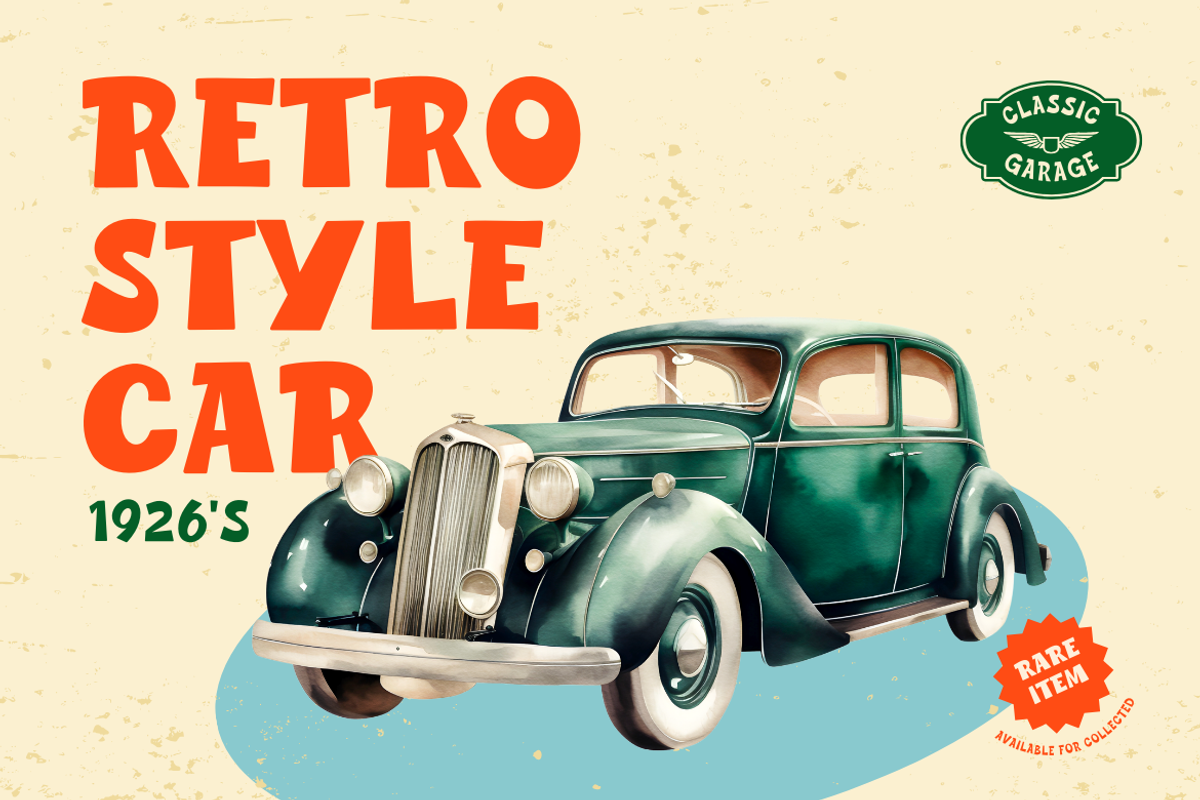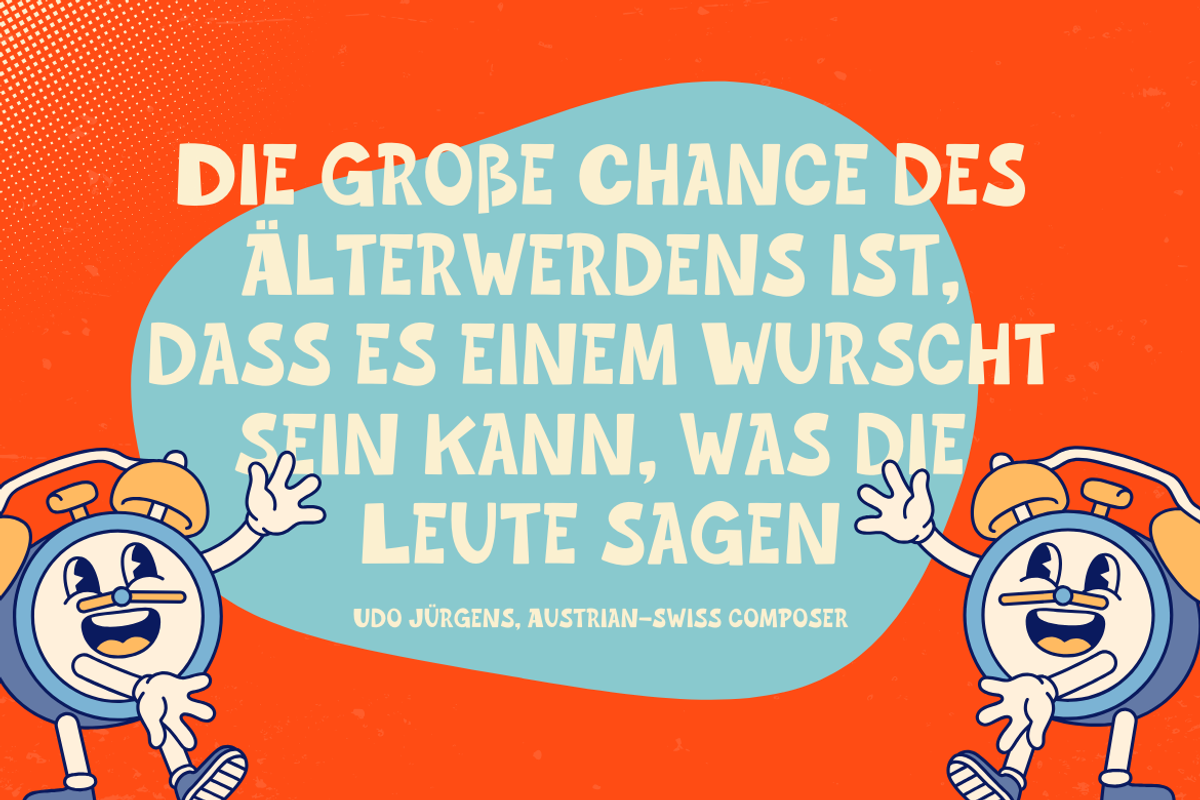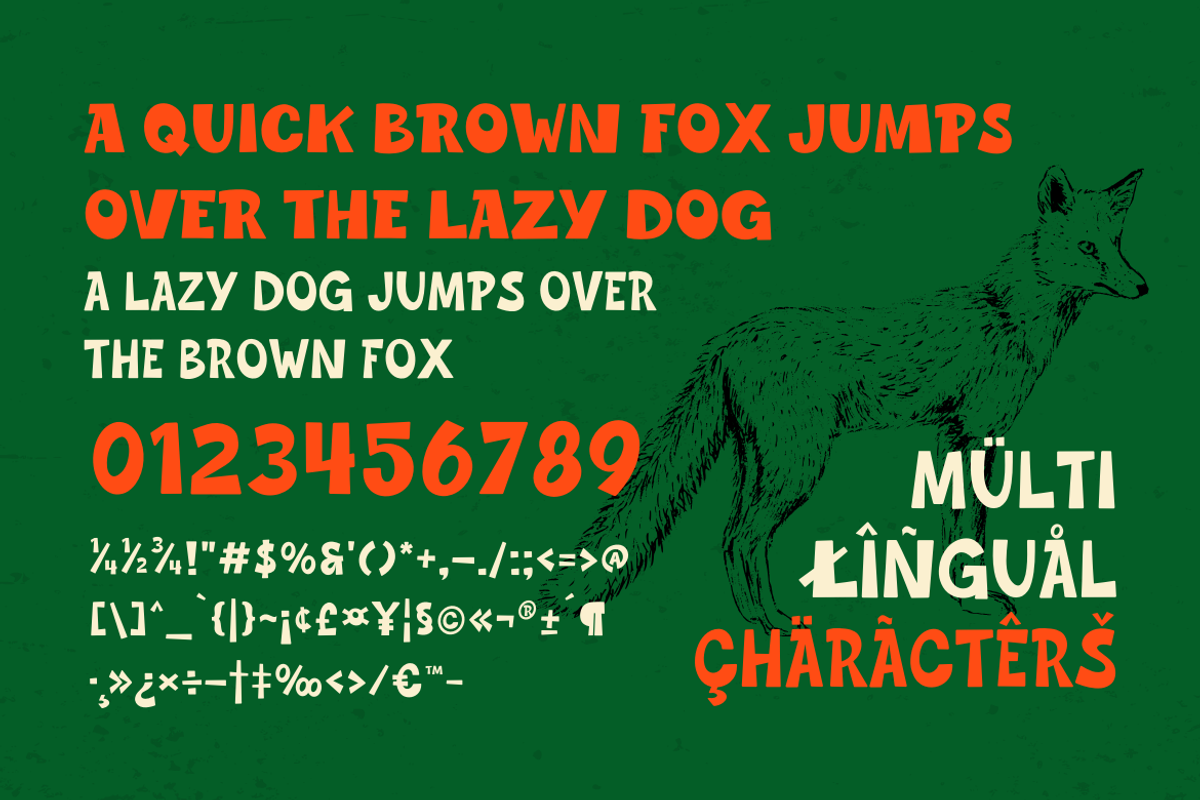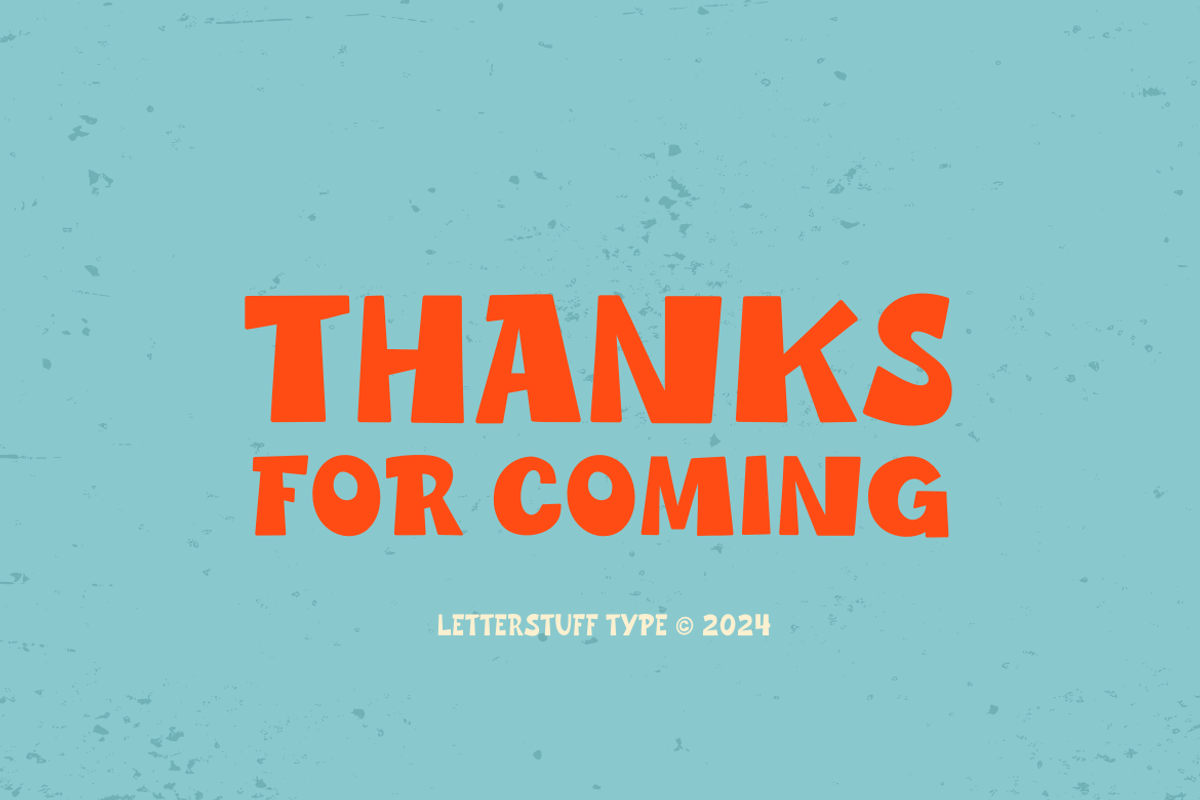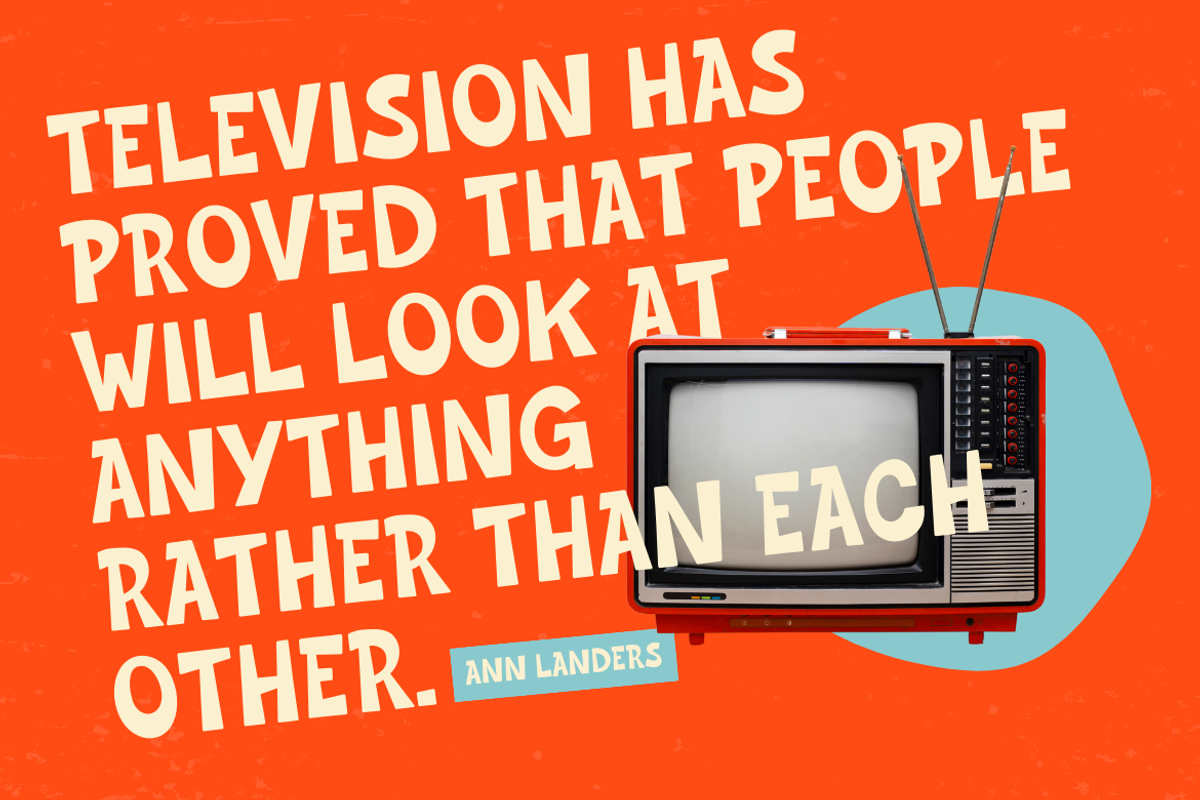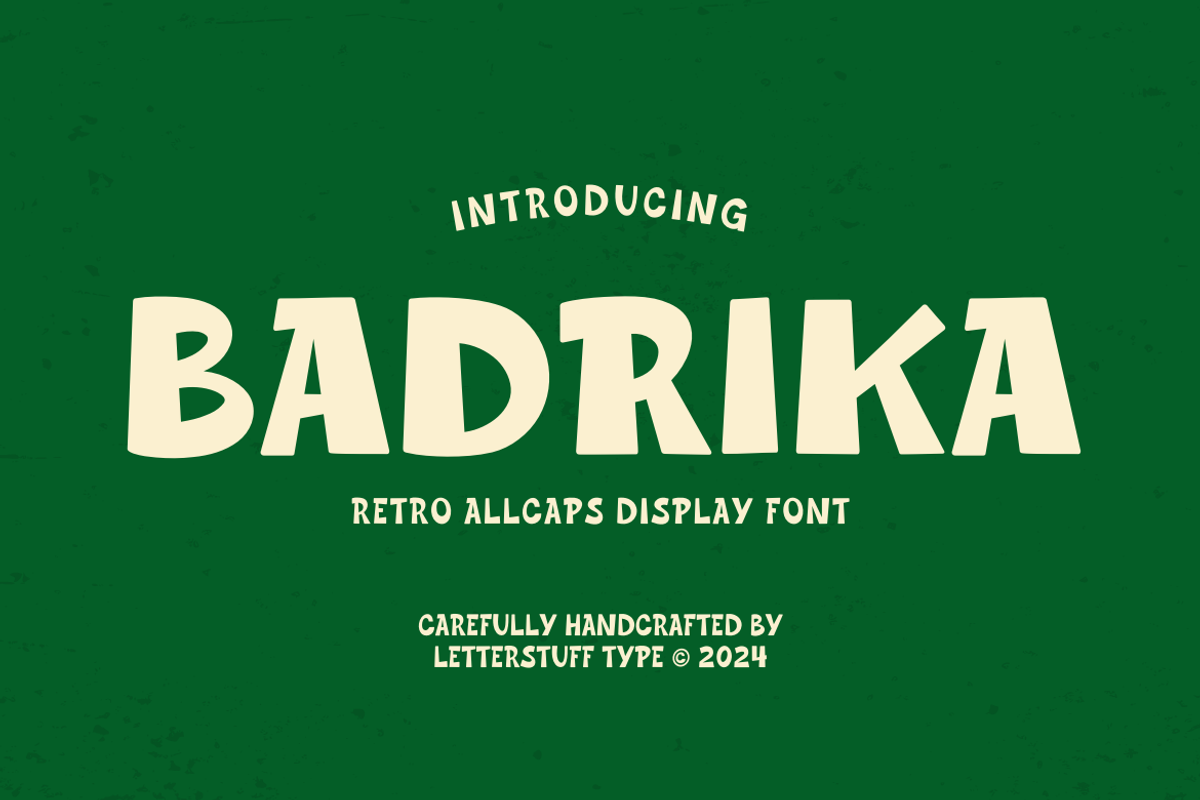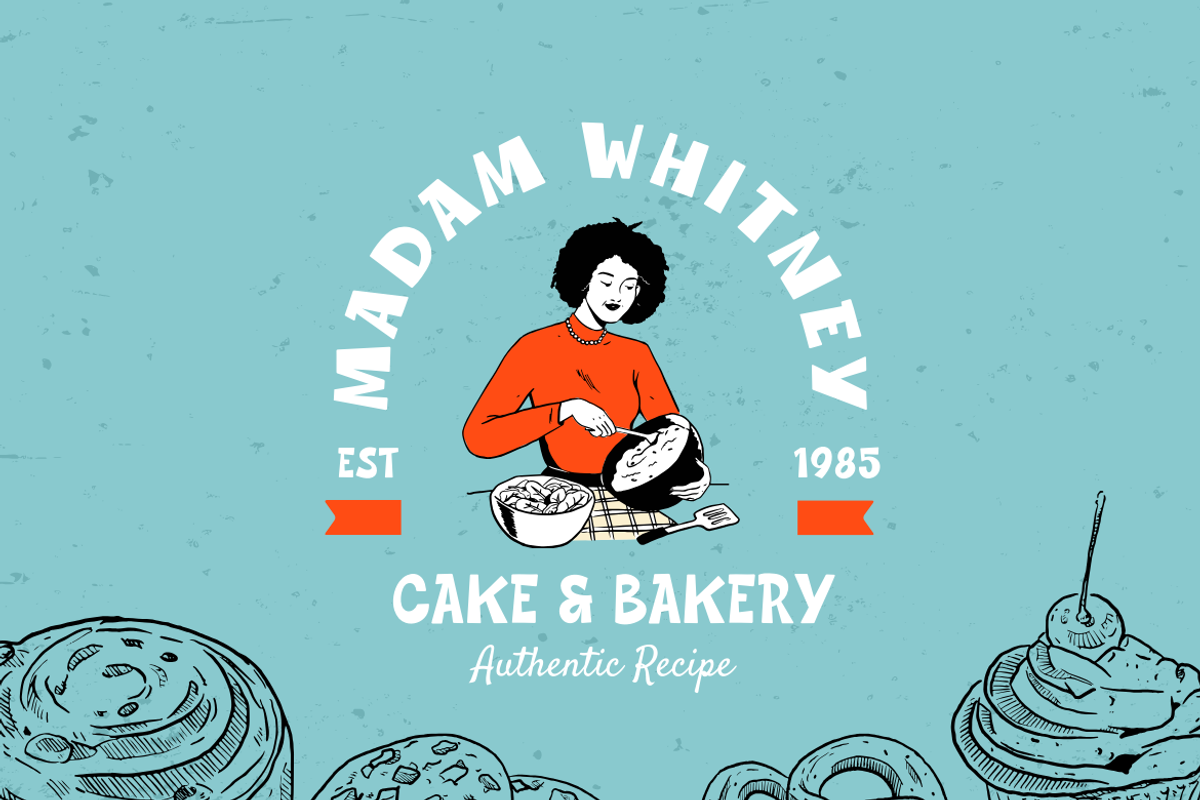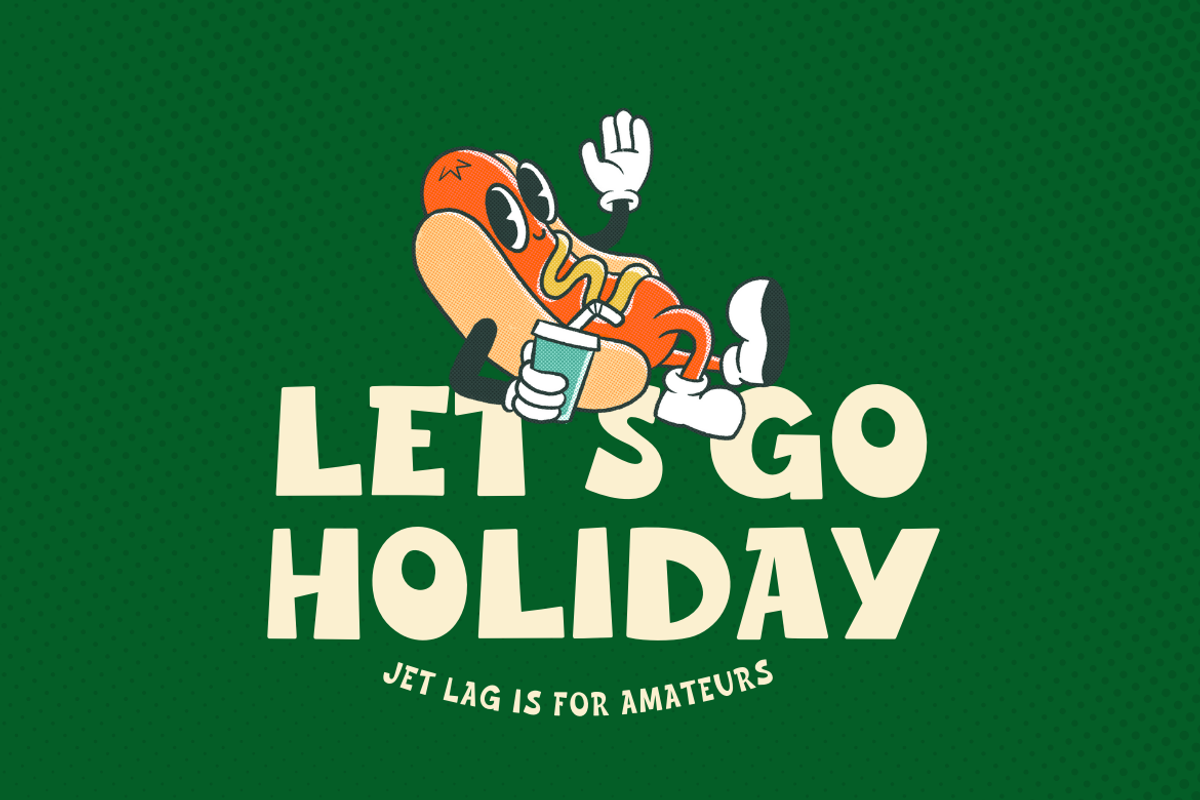
Badrika Font
Meet Badrika, a delightfully retro font with a vintage twist. Crafted in all caps, Badrika brings a playful yet bold aesthetic to any design. Supporting multilingual characters and available in both regular and oblique styles, this font is perfect for adding a touch of nostalgia to branding, posters, and more. Dive into the charm of yesteryears with Badrika